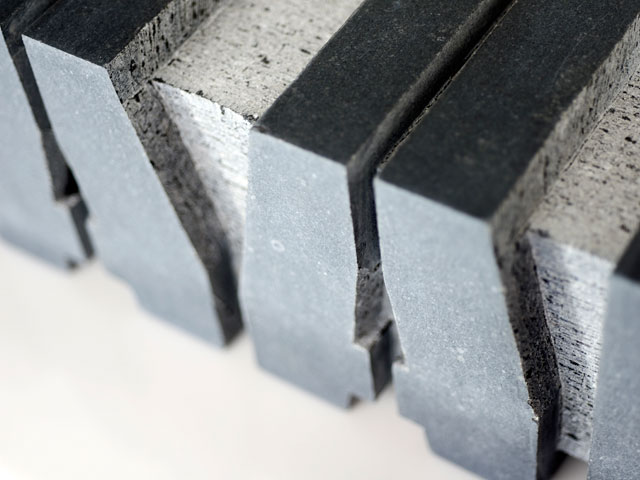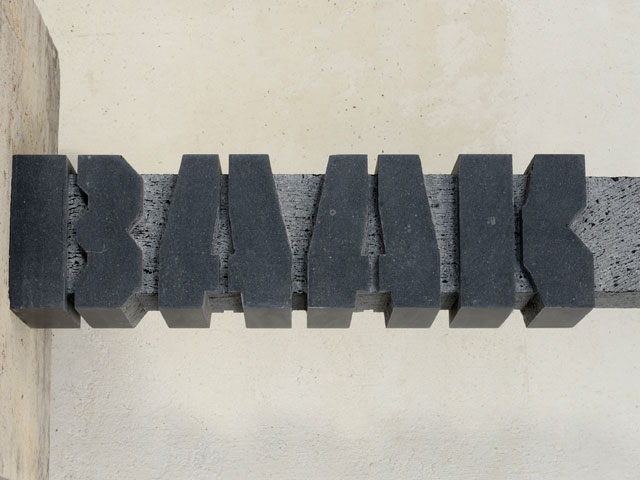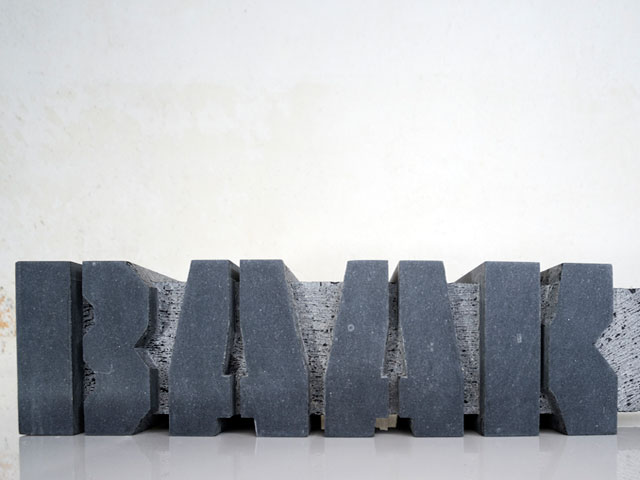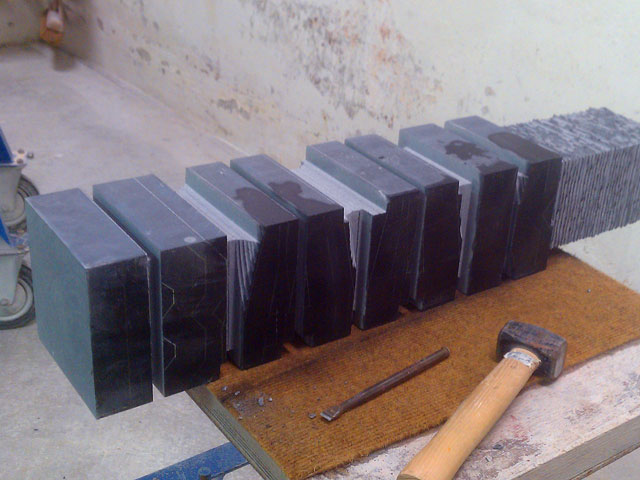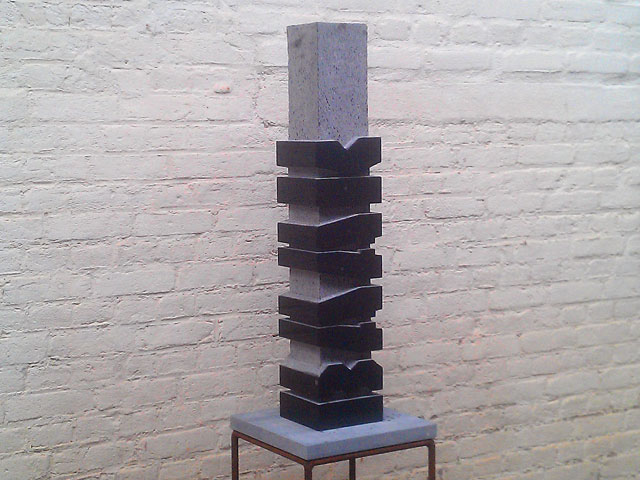
Why not using a stencil font to cut away the negative shapes in stone? Studio Baak didn’t hesitate, and turned their logotype into a pretty eternal 3D-beauty.
Baak stonecut
Studio Baak